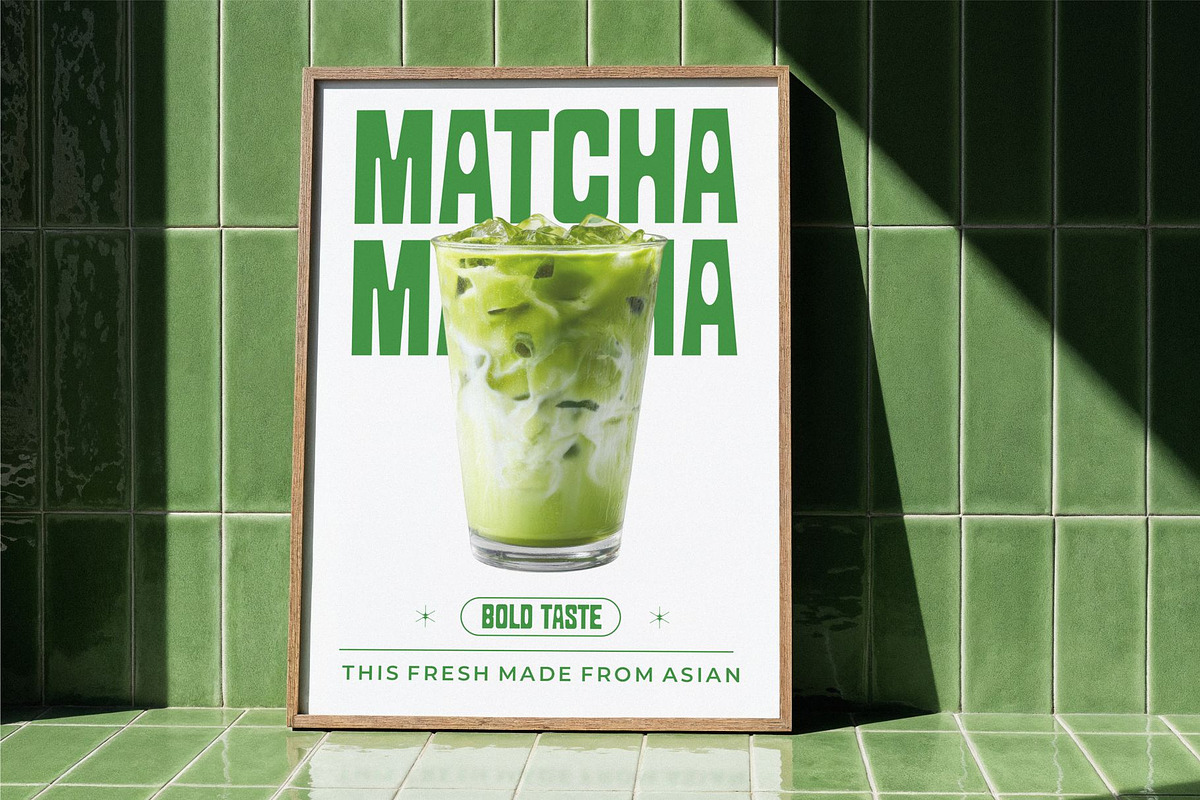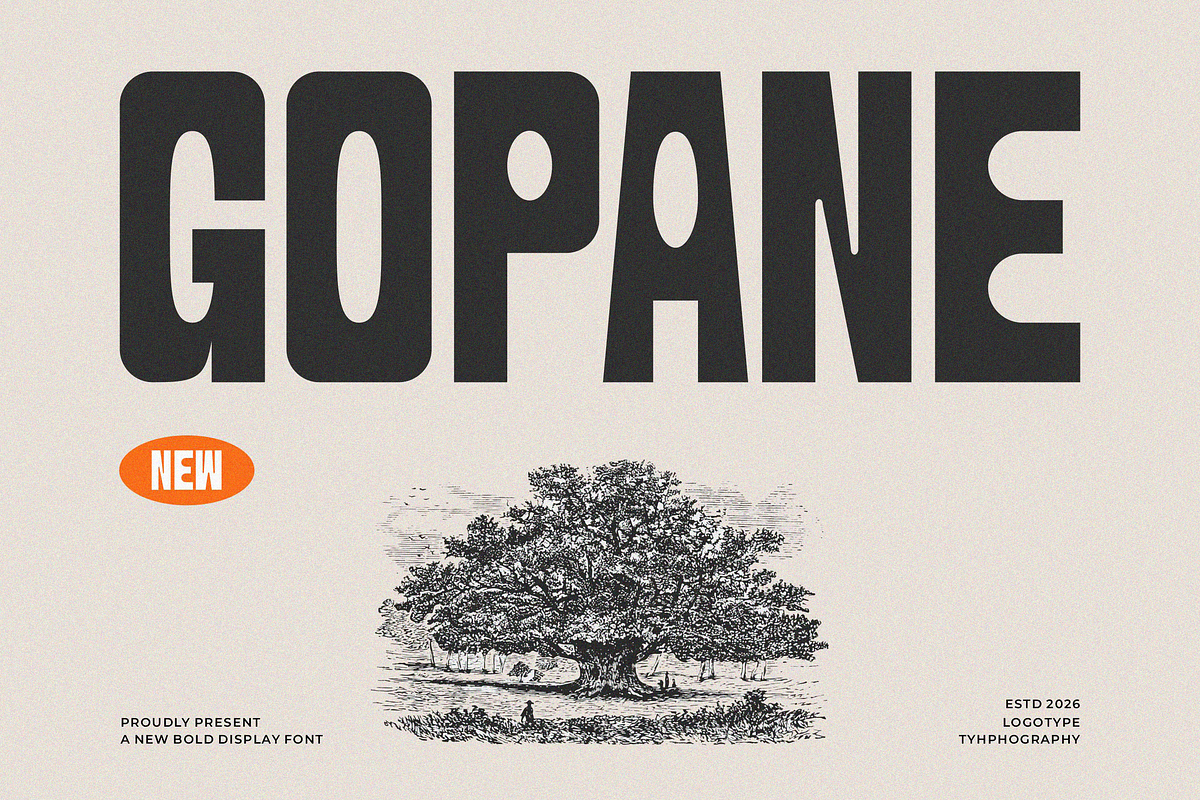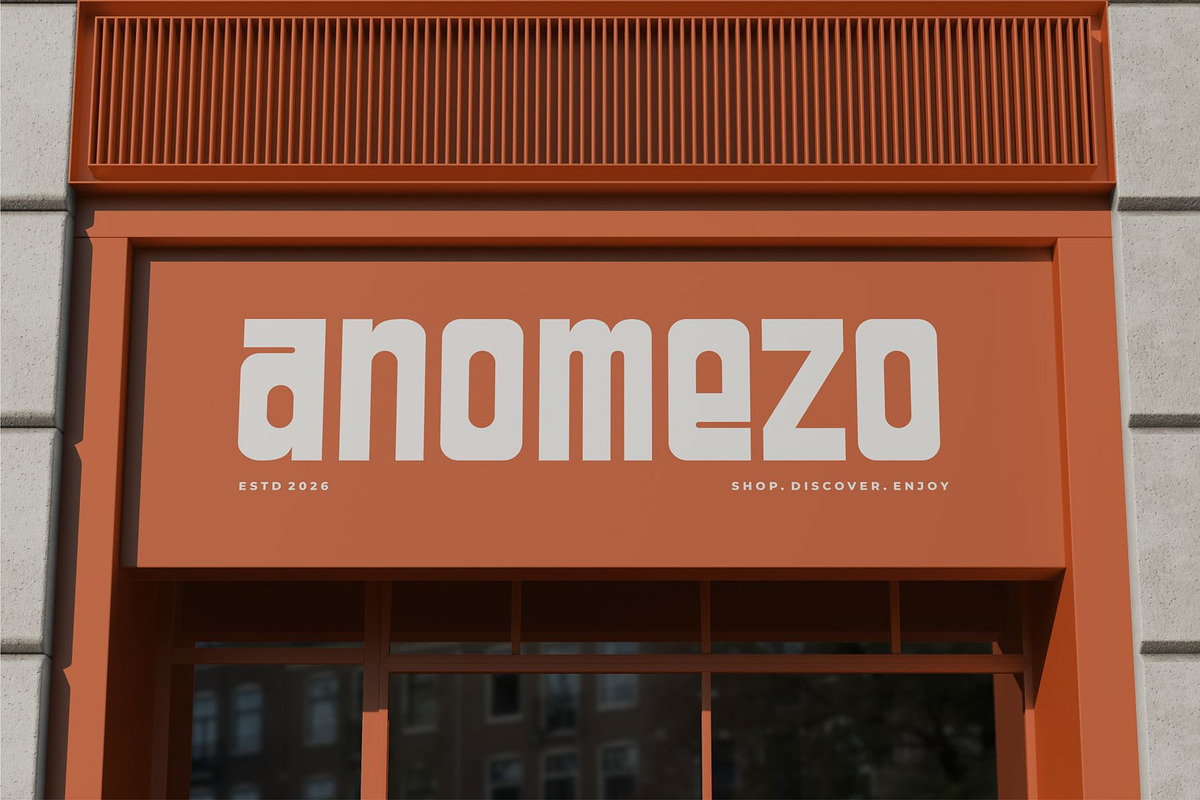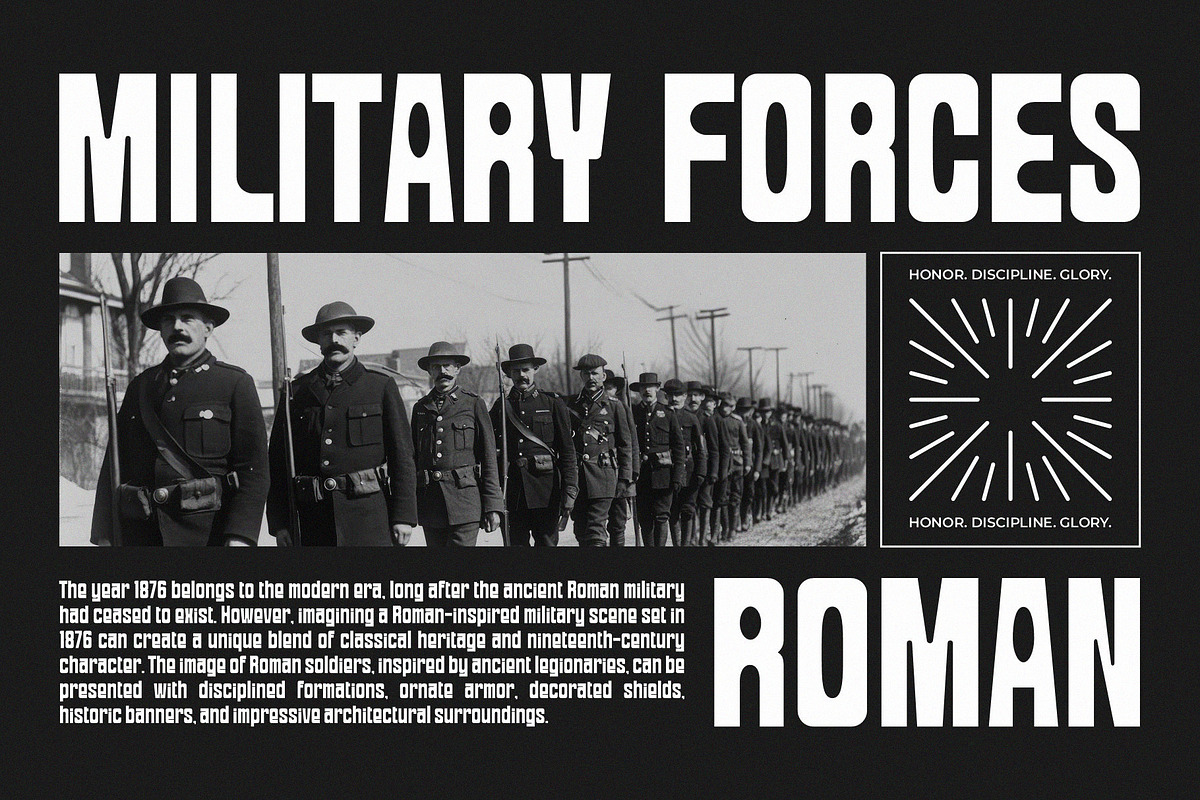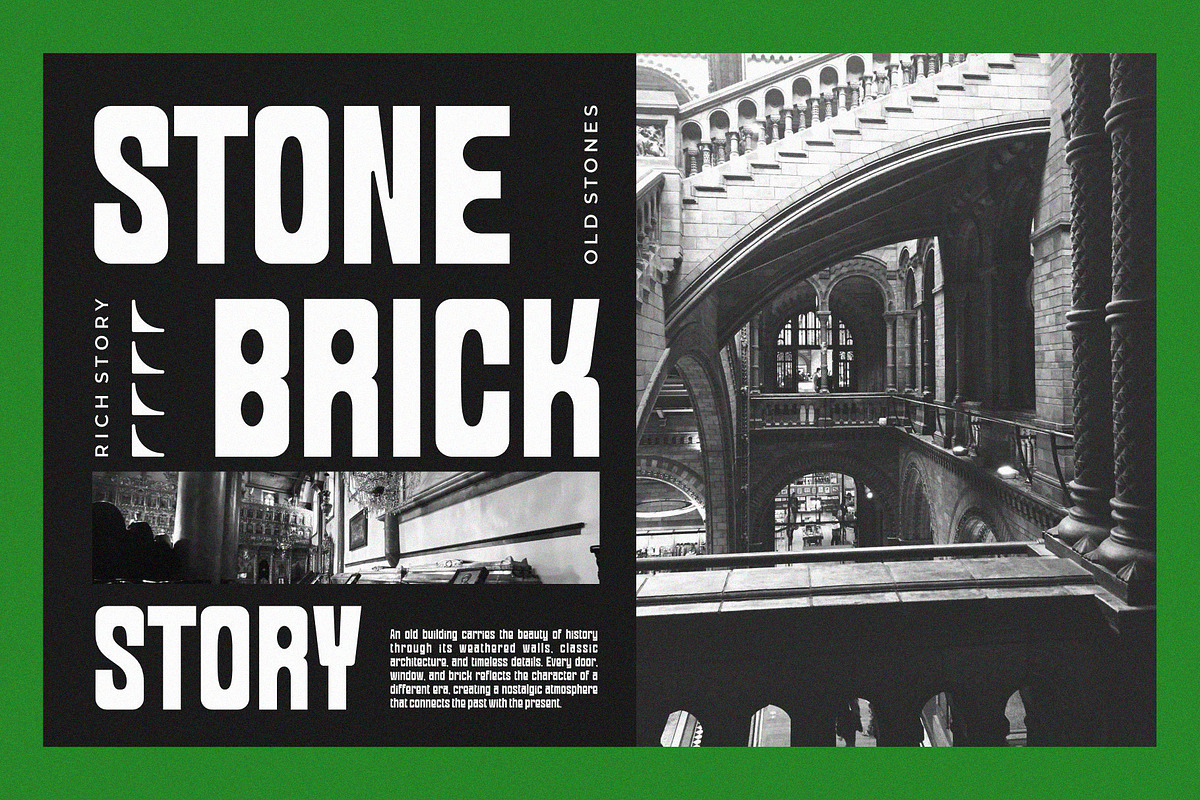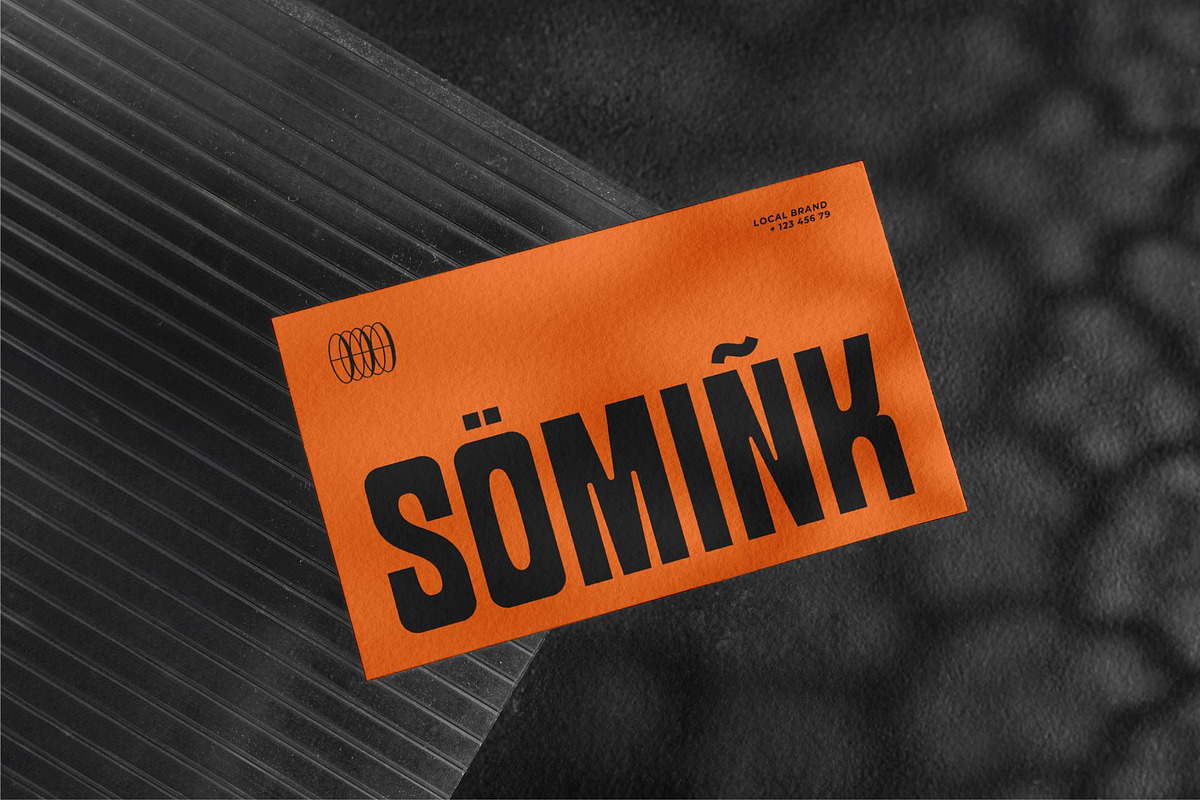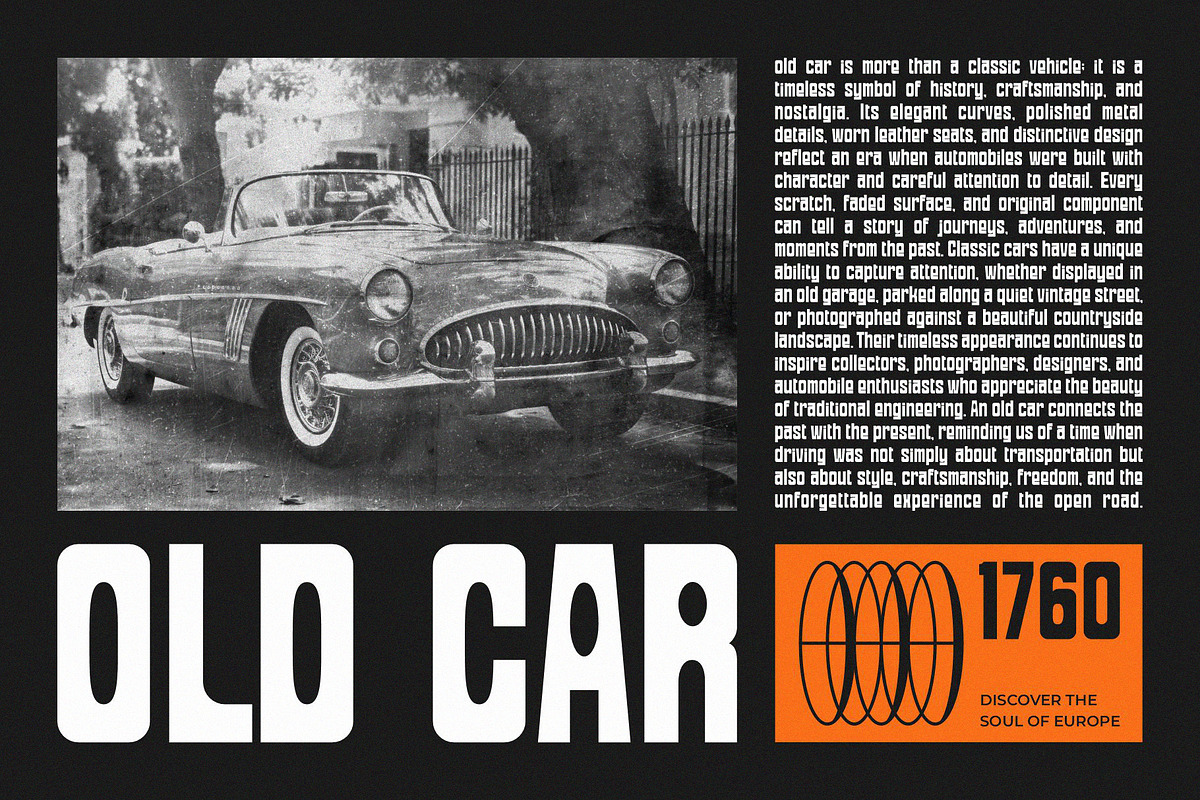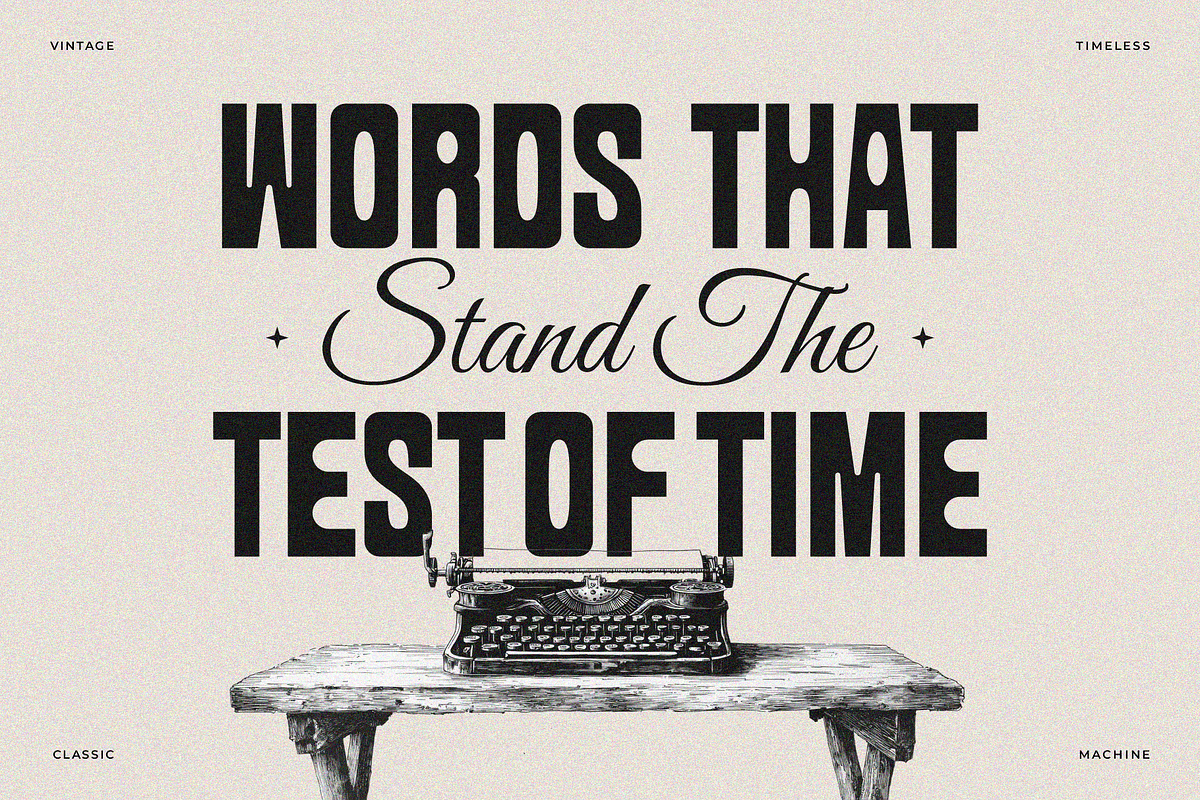
Gopane || Bold Display Font
Immerse your designs in the vibrant spirit of the 90s with GOPANE, a vintage bold display that beckons a playful yet professional aesthetic. Anchoring each letterform in solid geometry, this typeface delivers with bold display and exaggerated curves, creating a unique flair.